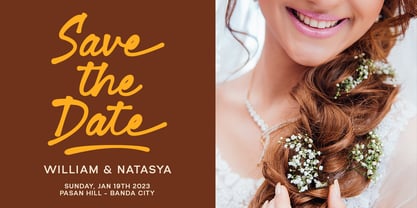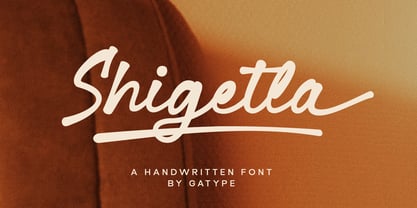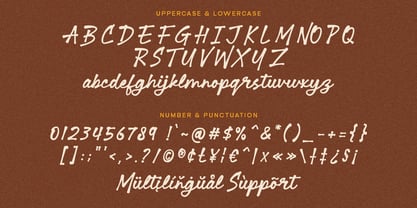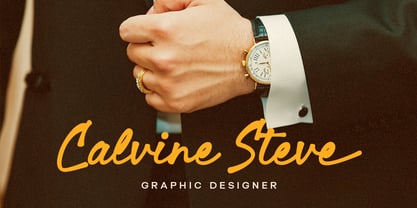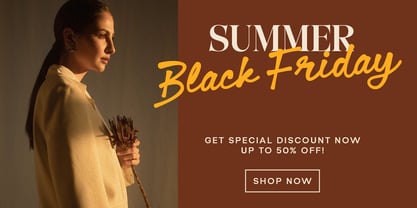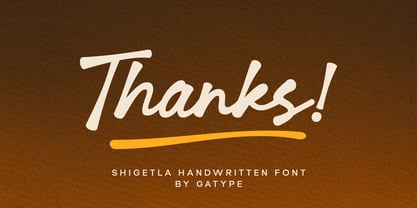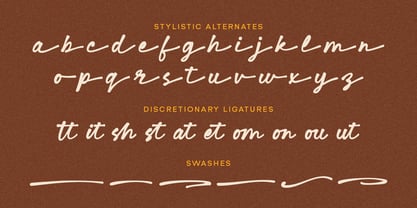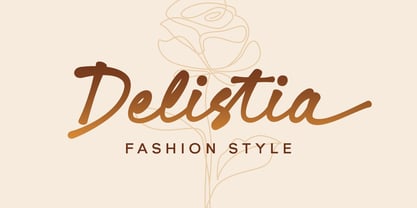
Shigetla
by Gatype
The Shigetla Font Family was designed by khaidir and published by Gatype. Shigetla contains 1 styles. More about this family
Shigetla comes with an extreme Brush cut, sharp corners and interactive straps. The affected characters are spread across three capital-specific sub-families, with different styles, and different personalities. Bold character separation and considered binding standards create a type that is sturdy, modern and attractive
Shigetla is a modern stylish brush font, each letter has been carefully crafted to make your text look unique.